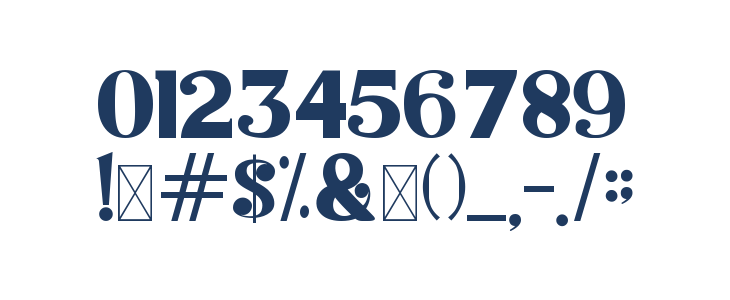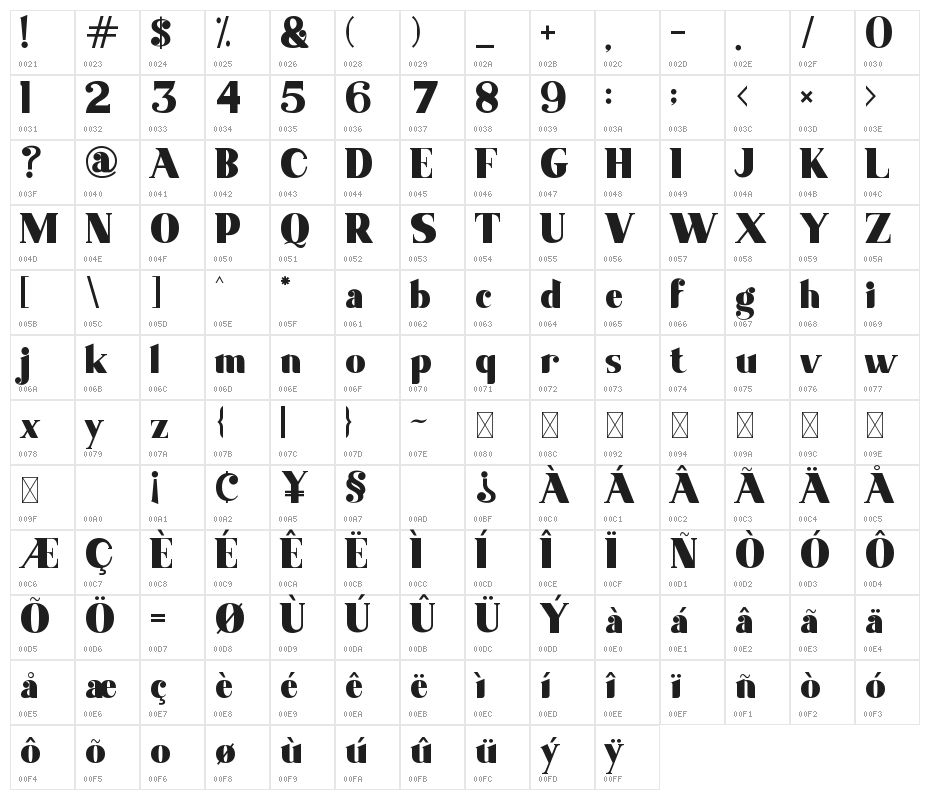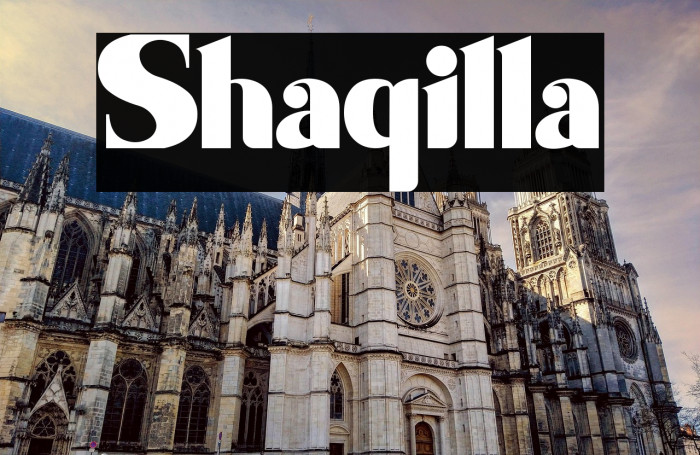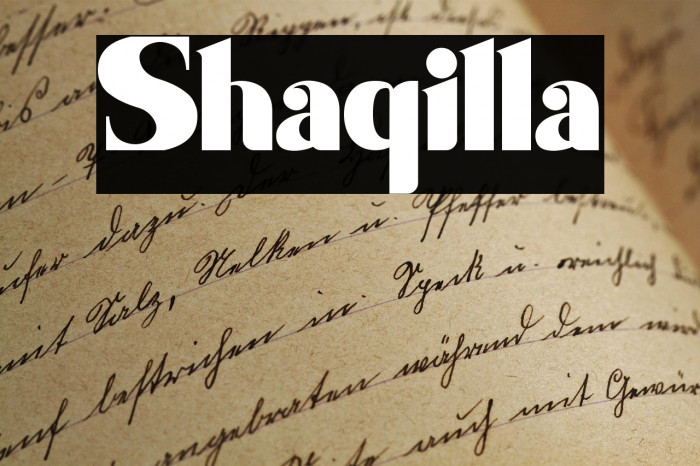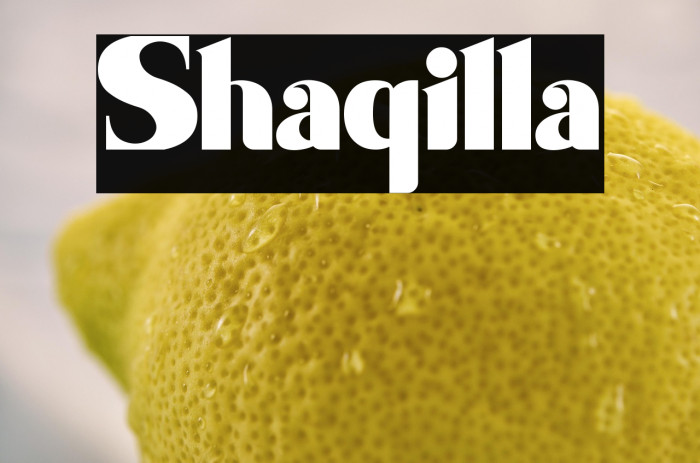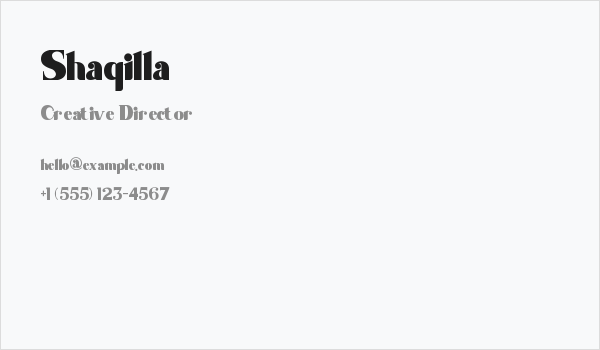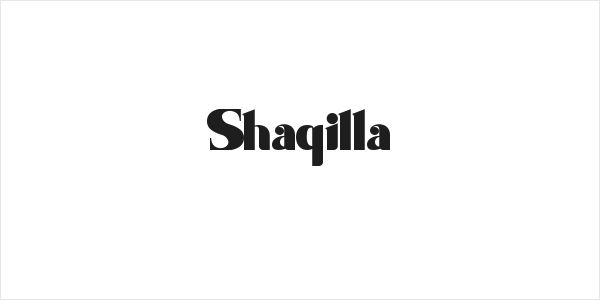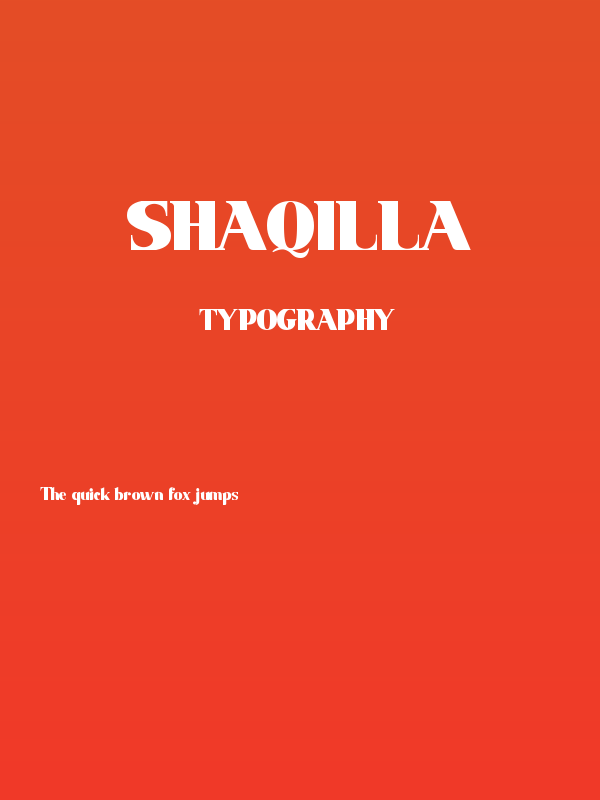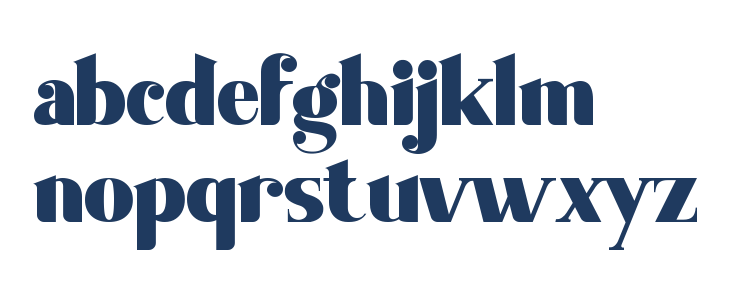
Shaqilla Font
Shaqilla Description
This font features a bold and dramatic style with high contrast between thick and thin strokes, giving it a striking and impactful appearance. The uppercase letters are particularly prominent, with sharp serifs and a strong vertical emphasis. The lowercase letters maintain a consistent weight, with rounded forms that add a touch of elegance. The numerals are equally bold, ensuring they stand out in any design. Special characters are crafted with the same attention to detail, making them suitable for a variety of uses. Overall, this font combines traditional serif elements with a modern twist, making it versatile for both classic and contemporary designs.